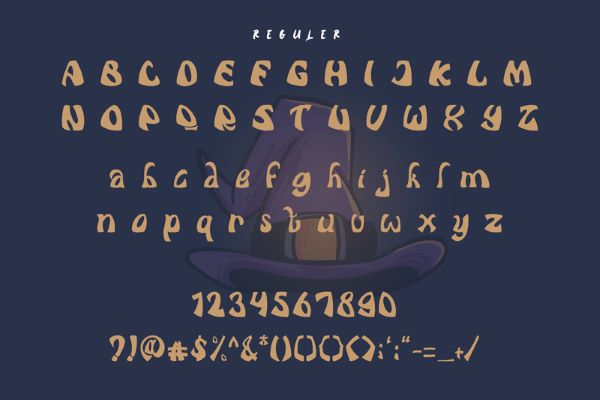
The Creepy Font
The Creepy by Faisal Nahdi is a free Halloween and freaky font with a suitably sinister and jagged personality — its distorted, irregular letterforms capturing the unsettling energy of horror aesthetics with just enough graphic coherence to remain deployable across a wide range of dark-themed design projects. Spooky season posters, Halloween party invitations, horror event flyers, dark editorial headers, and haunted-house branding all find a natural companion in this font’s menacing visual character.